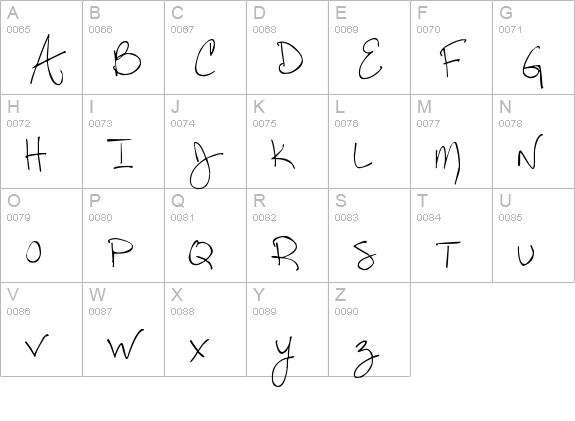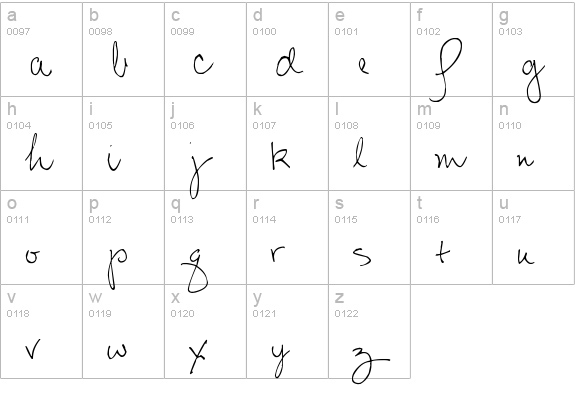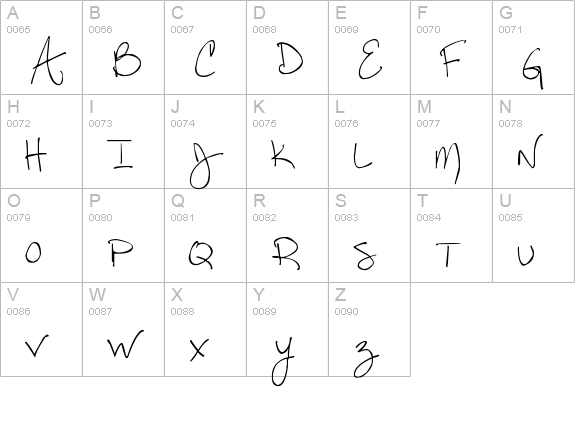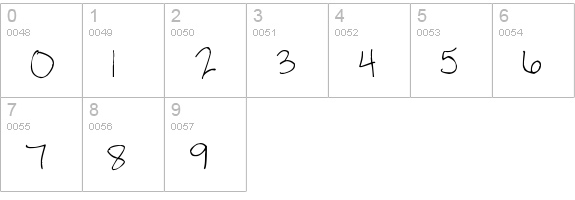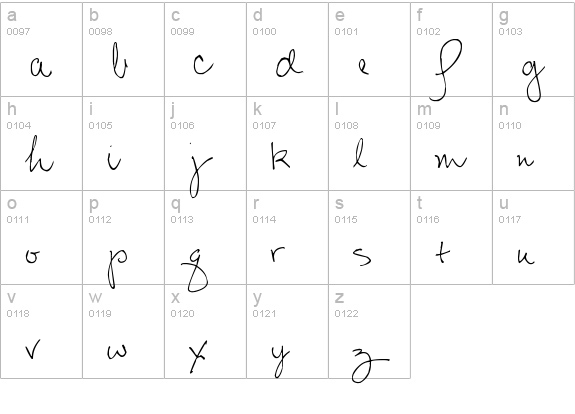
Pea Steph Font Details
Pea Steph font is a charming and whimsical typeface that exudes a sense of playfulness and creativity. Its hand-drawn style gives it a unique and personalized touch, making it perfect for adding a fun and friendly vibe to your projects. The flowing lines and quirky details of Pea Steph font make it a versatile choice for a wide range of design applications, from invitations and greeting cards to branding and social media graphics. Best of all, Pea Steph font is available for free download at FontsMarket.com. This means you can easily access this delightful font and use it in your designs without any cost. Whether you're a seasoned designer looking to add a fresh element to your work or a beginner eager to explore new typography options, Pea Steph font is a fantastic choice that won't break the bank. Download Pea Steph font today and let your creativity shine!